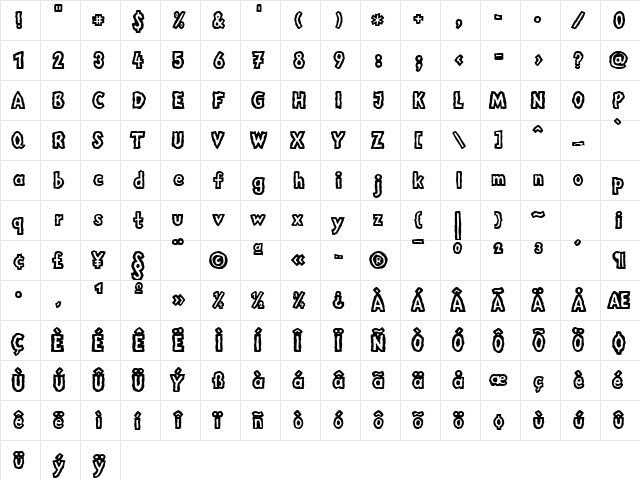
LTMega Normal Regular
Design Context for LTMega Normal Typeface
LTMega Normal is a composed and adaptable typeface that performs quietly and consistently across a wide range of design contexts.